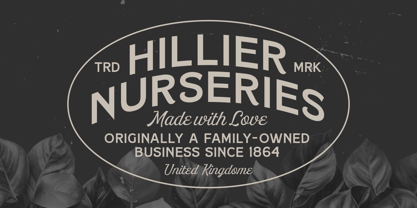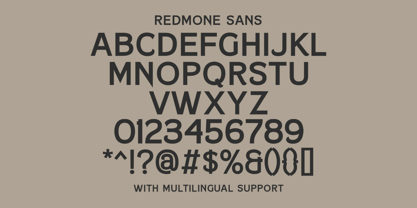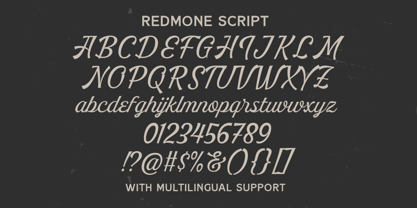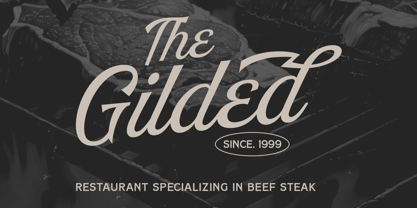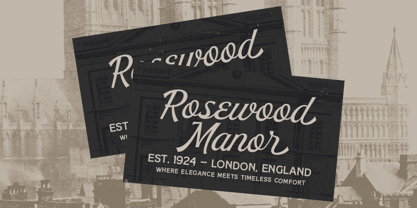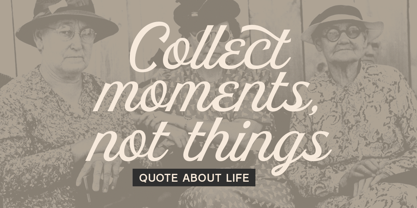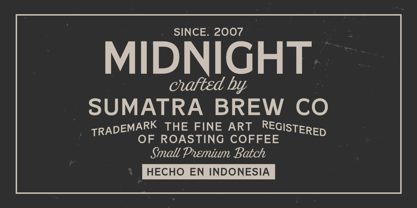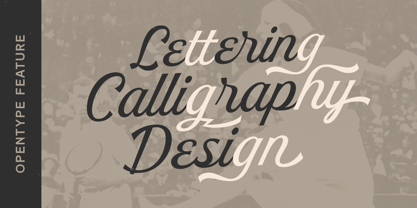
Redmone
by Letterhend
The Redmone Font Family was designed by Hendry Juanda and published by Letterhend. Redmone contains 2 styles and family package options. More about this family
Redmone is a carefully crafted font duo that blends an elegant script with a bold sans-serif, achieving a perfect balance of vintage charm and modern versatility. Designed with meticulous attention to detail, it evokes a dramatic yet timeless feel—like stepping into an old city infused with warmth, romance, and character.